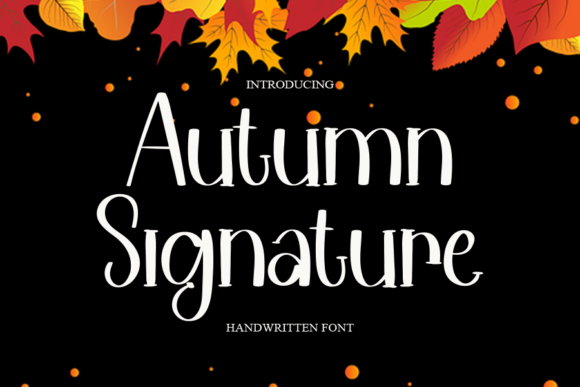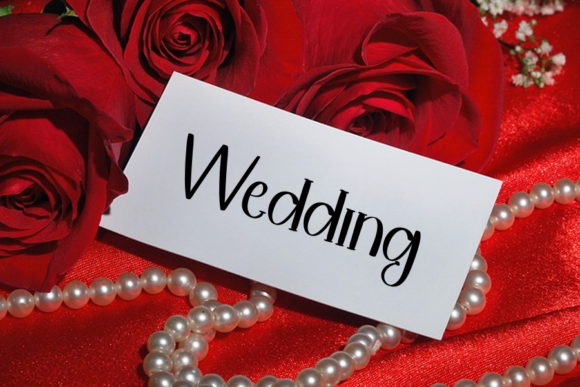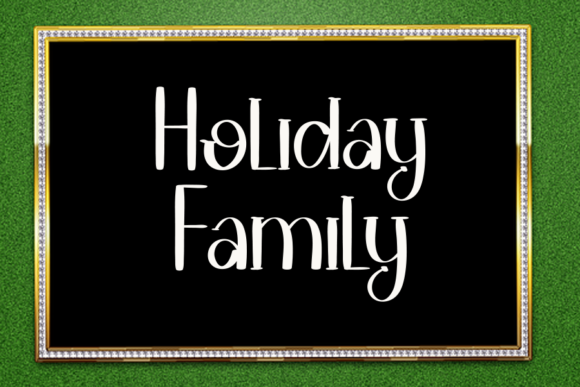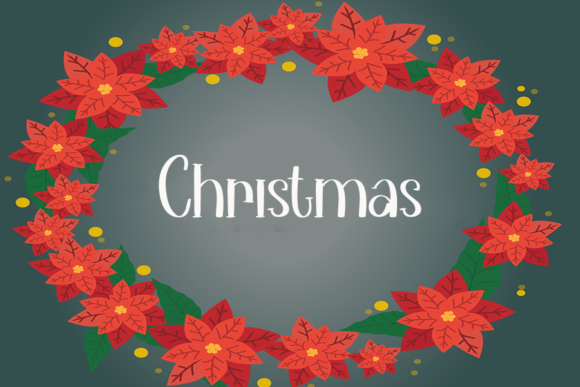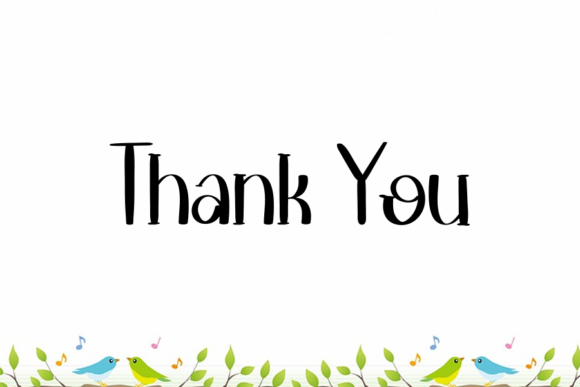
Autumn Signature Font
About Autumn Signature Font
Autumn Signature is a casual script font carefully created with a touch of trendiness. Whether you’re looking for fonts for Instagram or calligraphy scripts for DIY projects, this font will turn any creative idea into a true piece of art!